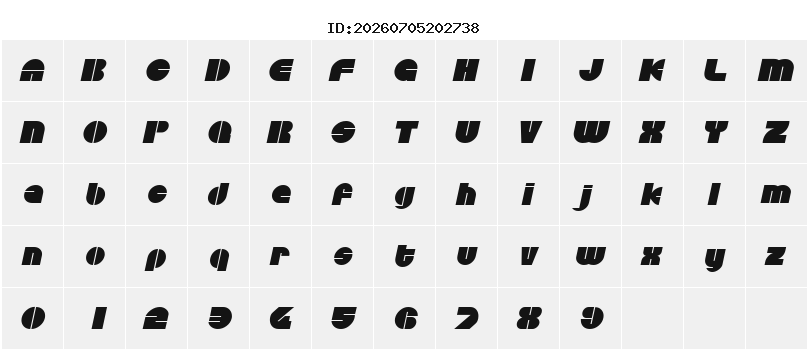
Discotheque Preview
• Font Name: Discotheque
• Full Font Name: Discotheque Italic
Discotheque.ttf is a modern, elegant sans-serif font designed for ultimate readability and visual harmony. Perfect for branding, headlines, web design, and print materials.